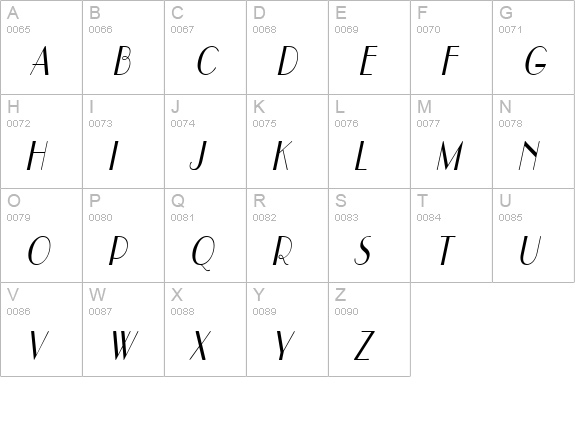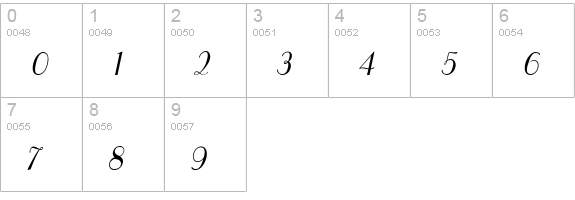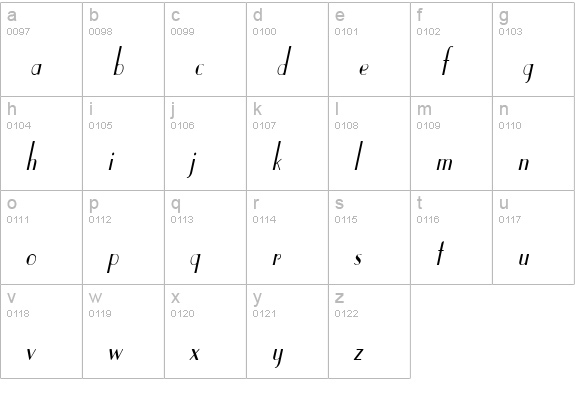
Paris Condensed Italic is a distinctive, condensed-width, italic variant in the Paris typeface family \xE2\x80\x94 well suited to design and typography projects.
Paris Condensed Italic font is a beautiful and elegant typeface that exudes sophistication and charm. Its condensed design adds a touch of modernity and makes it perfect for any project that requires a sleek and refined look. The italicized style adds a hint of playfulness and uniqueness, making it stand out from the crowd. This font is not only visually stunning but also incredibly versatile. It can be used for a wide range of design purposes, such as branding, packaging, headlines, invitations, and much more. Its legibility remains intact even in smaller sizes, ensuring that your message is effectively communicated to your audience. What makes Paris Condensed Italic font even more appealing is that it is available for free! You can easily download it at FontsMarket.com, where it is freely accessible to all. This means that you can enhance your designs with this stunning typeface without any cost, making it a valuable asset for both professional designers and amateurs alike. With its combination of elegance, modernity, and versatility, Paris Condensed Italic font is a must-have for anyone looking to elevate their design projects. Whether you're working on a personal project or a client's branding, this font will undoubtedly add a touch of sophistication and style. Download it today at FontsMarket.com and unleash your creativity with this freely available gem.